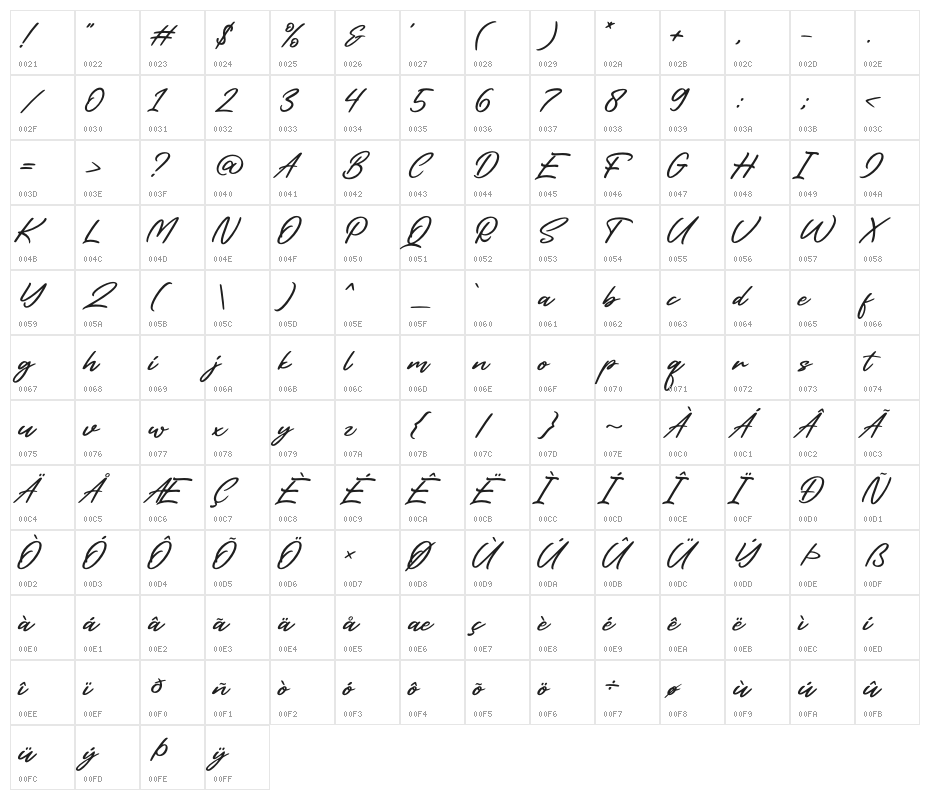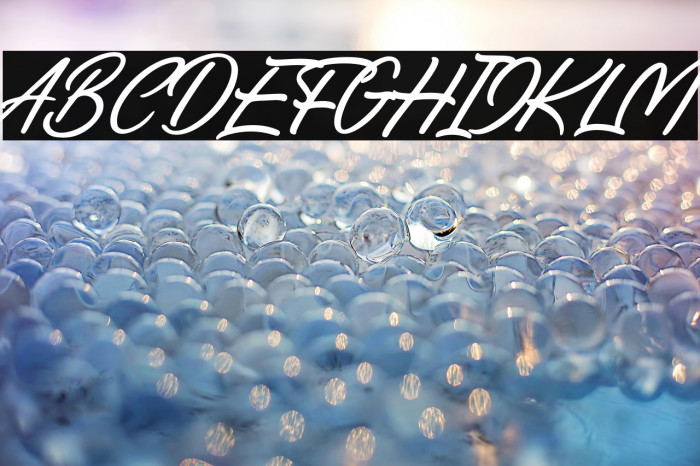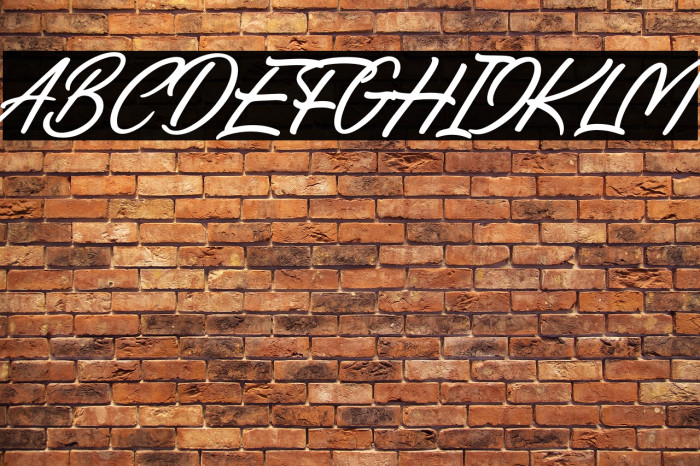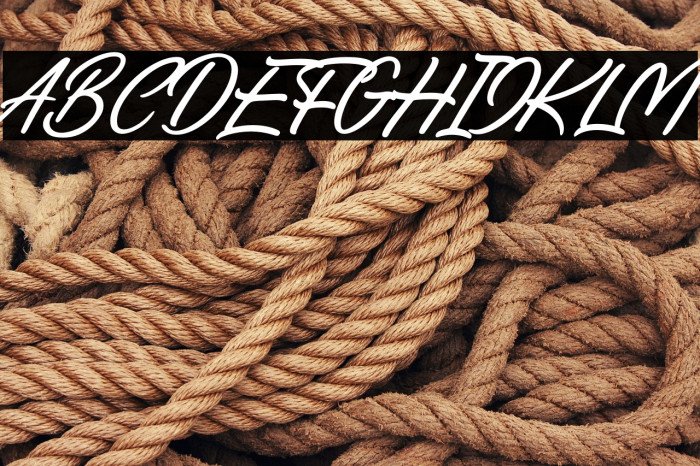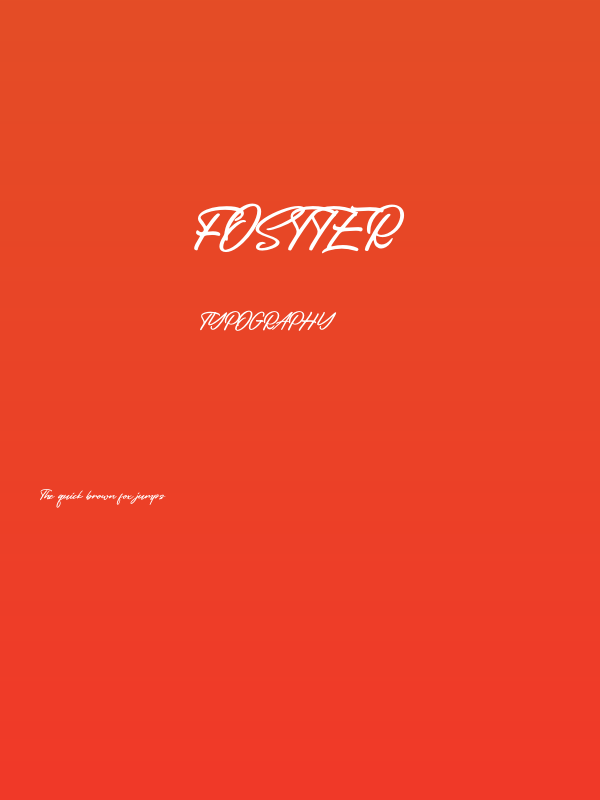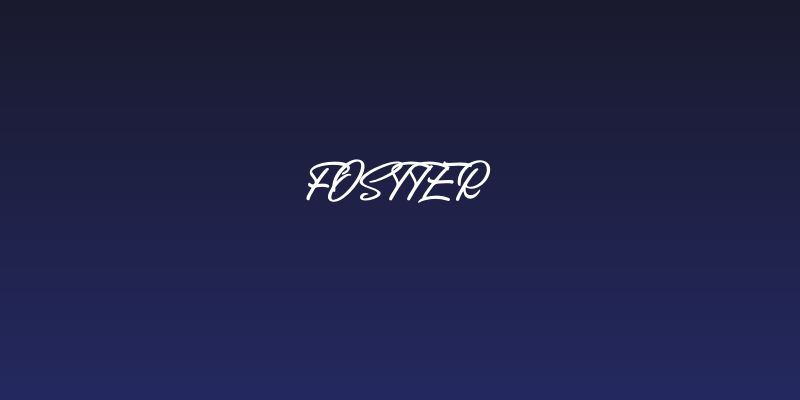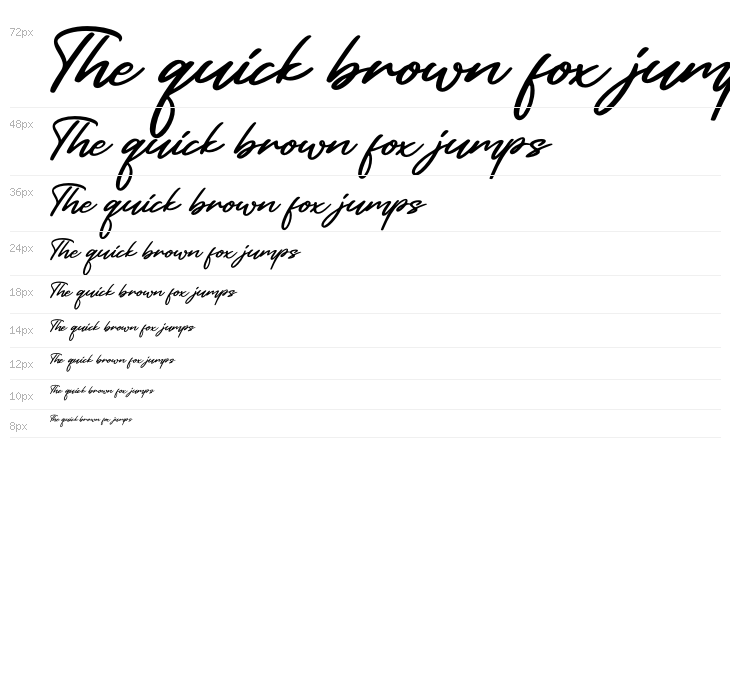
Fostter Font
Fostter Description
This font features a flowing, cursive style with elegant, sweeping strokes that mimic the fluidity of handwriting. The uppercase letters are bold and slightly slanted, giving a sense of movement and dynamism. The lowercase letters maintain a consistent style, with smooth curves and connected strokes that enhance readability. Numbers and special characters are designed to match the overall aesthetic, ensuring a cohesive look across all text. The font's design is both sophisticated and approachable, making it suitable for a variety of uses.
| Proposed Projects | Ideal for wedding invitations, greeting cards, personal branding, and elegant signage. |